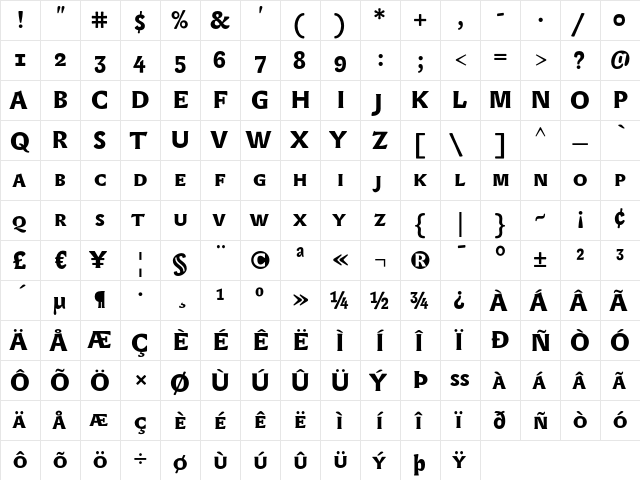
LexiconGothicSCOSF Bold
Design Context for LexiconGothicSCOSF Typeface
LexiconGothicSCOSF has the quiet confidence of well-executed sans-serif typography: versatile, unobtrusive, and dependable at any size. The heavy weight commands attention and anchors typographic hierarchies.
Well-suited to navigation labels, product packaging, and anywhere legibility at scale is essential.
Font Pairing: Use LexiconGothicSCOSF for headlines alongside a lighter-weight sans or serif for body copy to establish clear visual hierarchy.
Pro Tip: Use LexiconGothicSCOSF for UI labels, navigation, and short-form body copy where clean legibility is the priority.